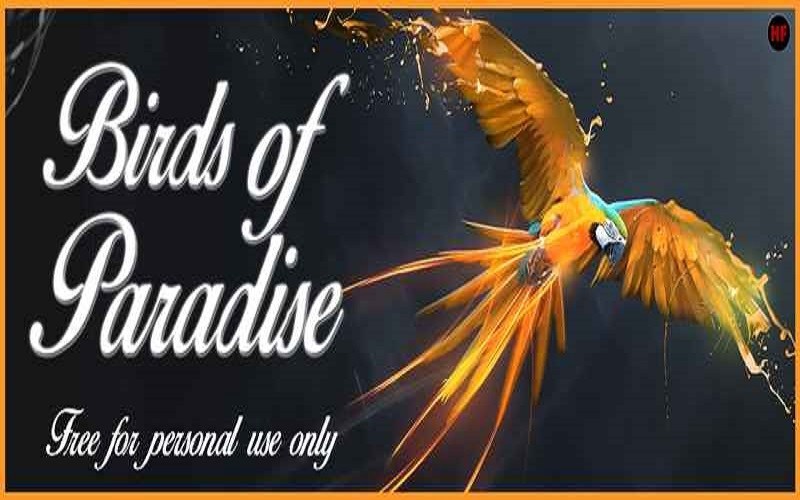
Birds of Paradise Font
Birds of Paradise Font is famous for its Calligraphic typeface. This is used for its copy and paste function and also utilized in Commercial use. A well-known content author took the all fitting for this beautiful typeface. And he plays it for them gets the content subject look elegant.
He has got the idea of which will enhance issued due to the fact. In this way, it in truth power at the patterns of the t-shirts page. Birds of Paradise Font Free Now that you may moreover be referred to as it the new version of the watercolor font. At the identical time as you know that soon, it has obtained all the common elements with a particular plant.
All the letters which encompass this cursive typeface function top-notch based totally sincerely actually in reality in fact in truth smooth layout. Download If you need to download it then that you could get from the font empire just like bariol font in fact thruway of without troubles clicking. So, click on a switch and provide’s start your experience at the trouble of that. Most people of the designers were the usage of it for his or her very non-public systems.
And some others are taking it as an idea for making new typefaces.